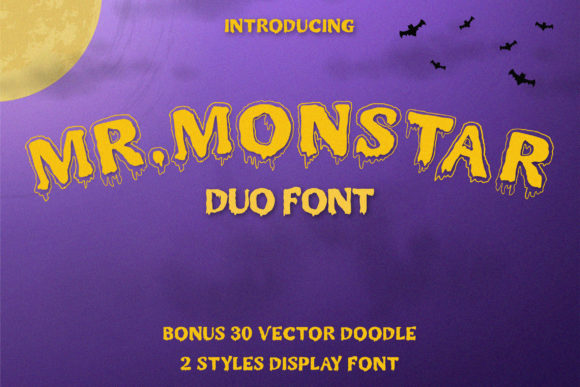
Step into the realm of the extraordinary with Mr. Monstar Font, a display typeface that captures the essence of Halloween's haunting charm. Unleash your creativity and craft designs that evoke a sense of eerie delight. This font is not just a collection of letters; it's a gateway to a world of storytelling, where your imagination takes center stage.
With its unique and captivating design, Mr. Monstar Font adds a touch of spooktacular style to any project. Whether you're creating eerie invitations, spine-tingling posters, or chilling social media graphics, this font will elevate your designs to new heights. Its distinctive characters, inspired by the spirit of Halloween, will leave a lasting impression on your audience.
Dive into the world of Mr. Monstar Font and discover the endless possibilities it holds. Let your imagination run wild as you craft designs that transport your audience to a realm of mystery and enchantment. Turn your creative visions into reality with this font that embodies the spirit of the supernatural.
Join the ranks of creative storytellers who have embraced the power of Mr. Monstar Font. With its captivating design, this font will transform your designs into haunting masterpieces. Unleash your creativity and let the spooky spirit flow through your designs. Elevate your projects to spine-chilling new heights with Mr. Monstar Font.